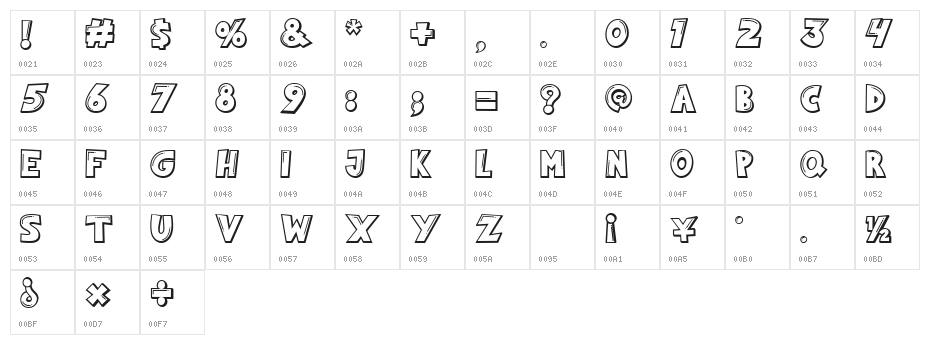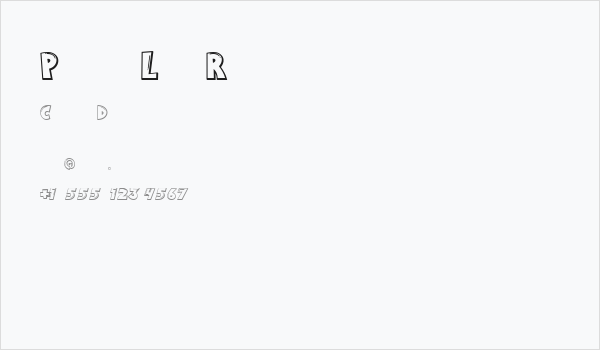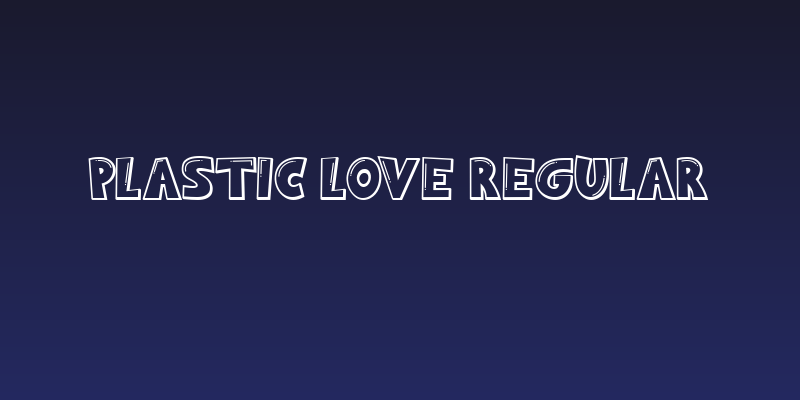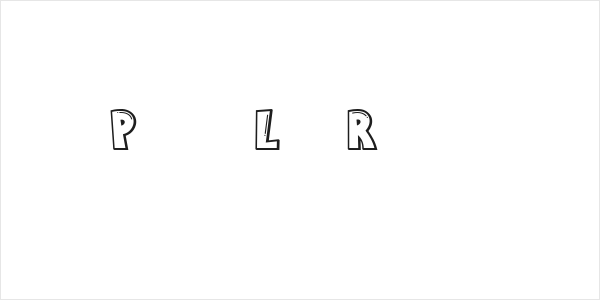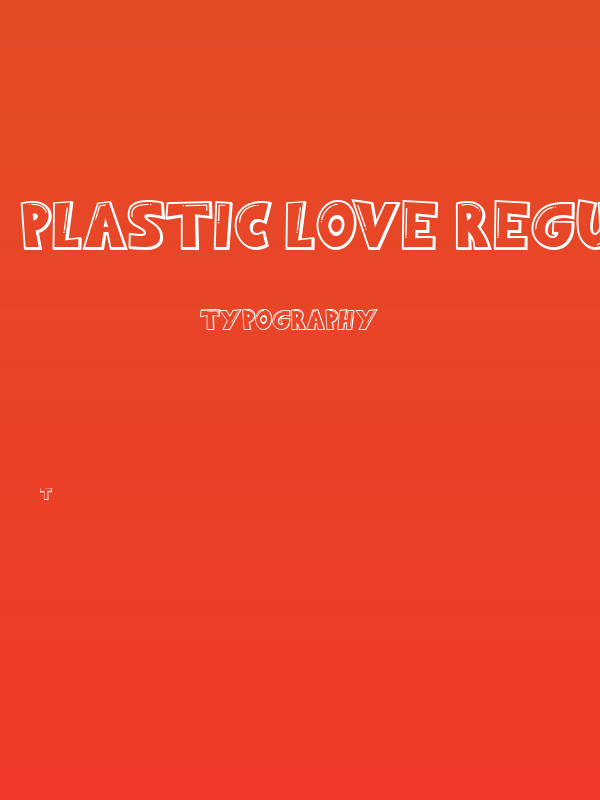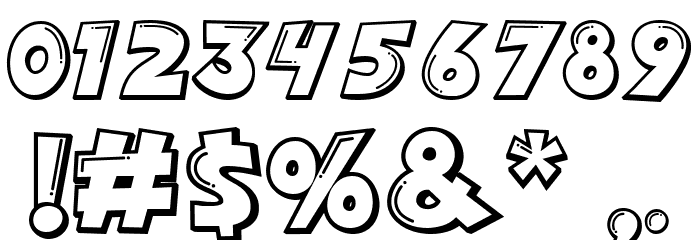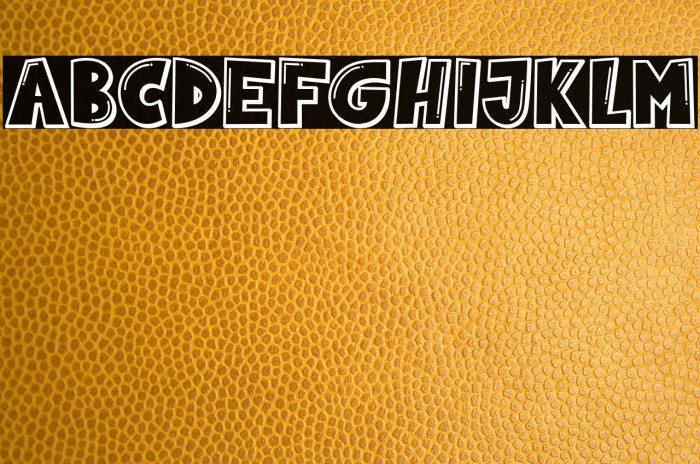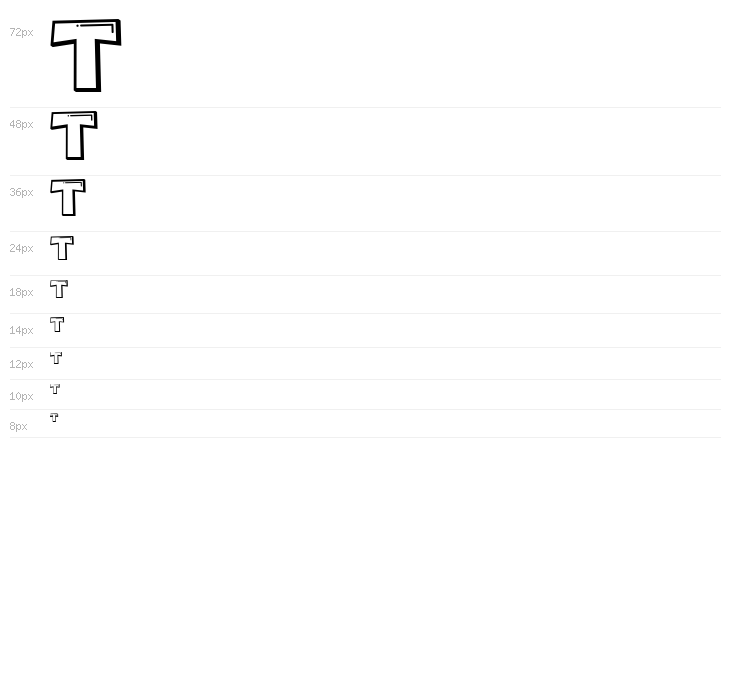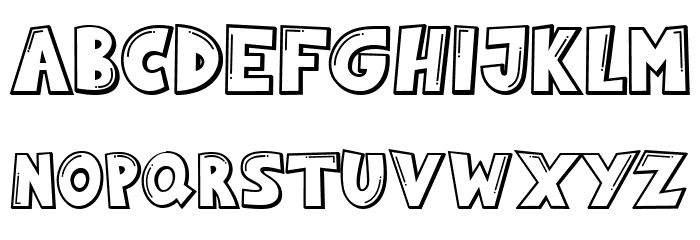
Plastic Love Regular Font
Plastic Love Regular Description
This font features a bold, playful style with a three-dimensional effect created by its outlined design. The letters are uppercase and have a cartoonish, dynamic appearance, making them stand out with a sense of movement and energy. The strokes are thick and consistent, contributing to its bold presence. The font's playful nature is emphasized by its slightly irregular shapes and the shadow-like outlines that give it a layered look. This font is ideal for projects that require a fun and engaging visual impact, such as children's books, comic titles, or playful branding materials.
| Overall Style | Playful, Cartoonish |
| Proposed Projects | Ideal for children's books, comic titles, playful branding, and posters. |